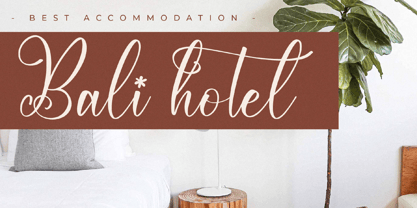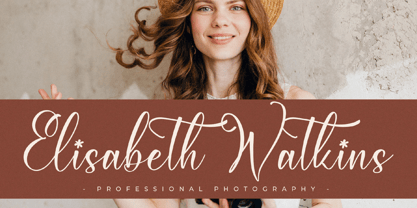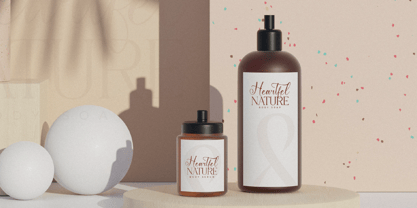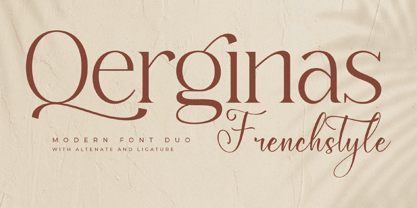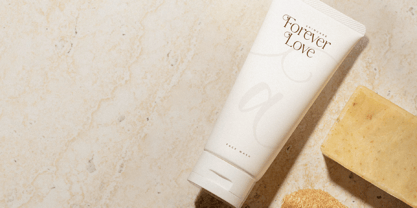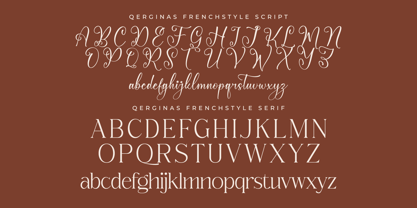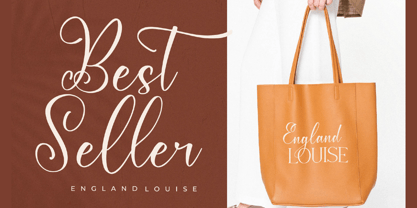
Qerginas Frenchstyle
The Qerginas Frenchstyle Font Family was designed by Heru Utama Putra and published by Letterena Studios. Qerginas Frenchstyle contains 1 styles. More about this family
Proudly present Qerginas French-style Font Duo.
A serif and script typeface that has its own unique style & modern look.
This typeface is perfect for an elegant & luxury logo, book or movie title design, fashion brand, magazine, clothes, lettering, quotes, and so much more.